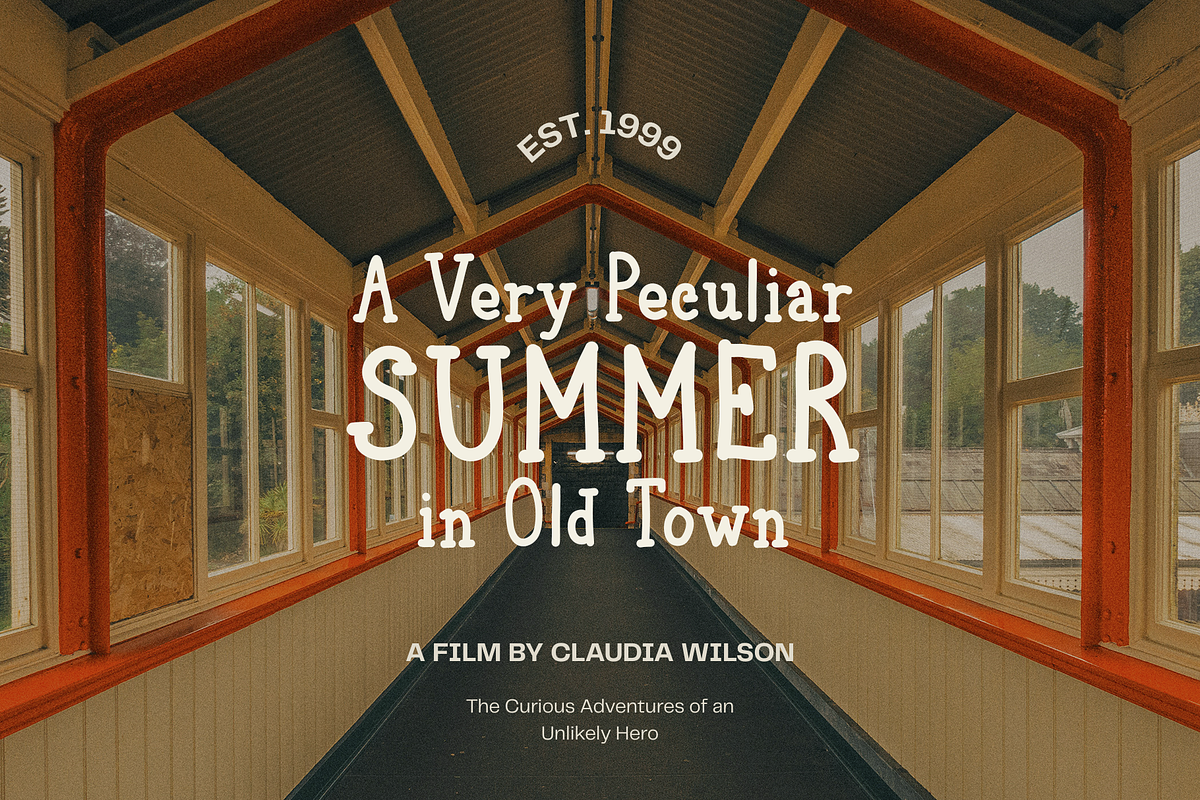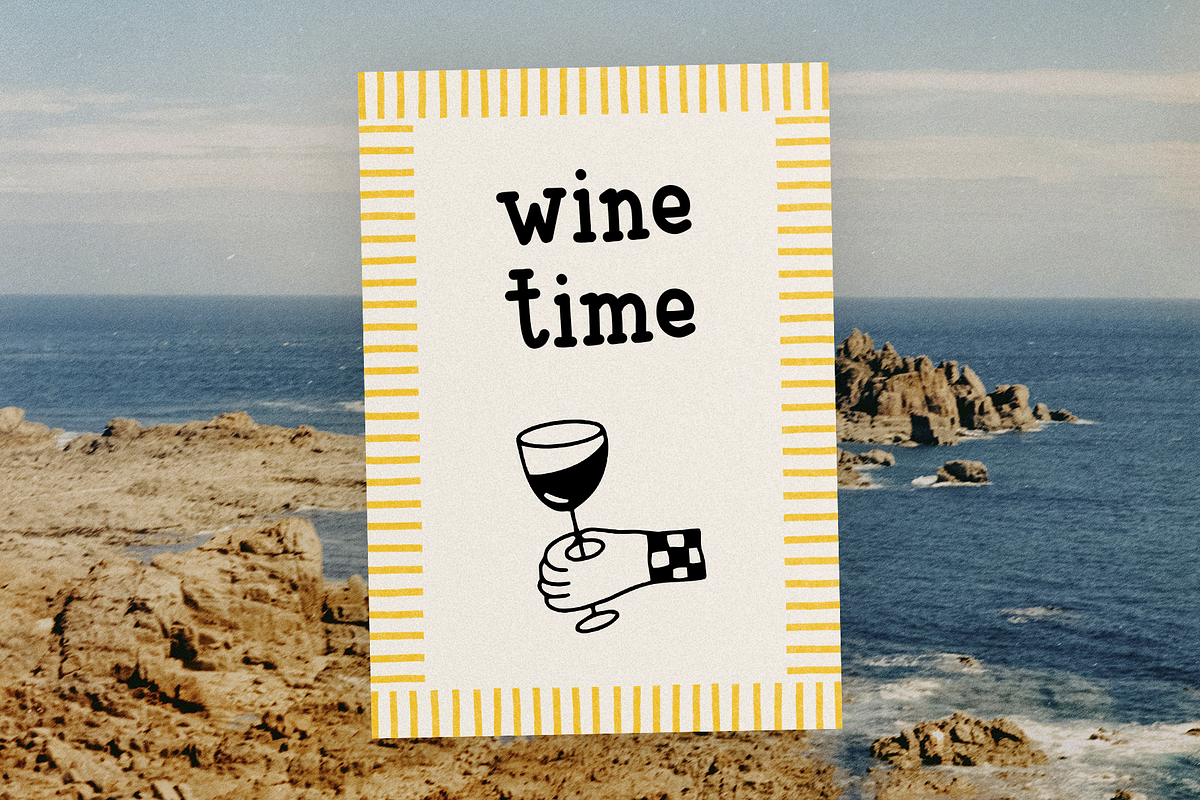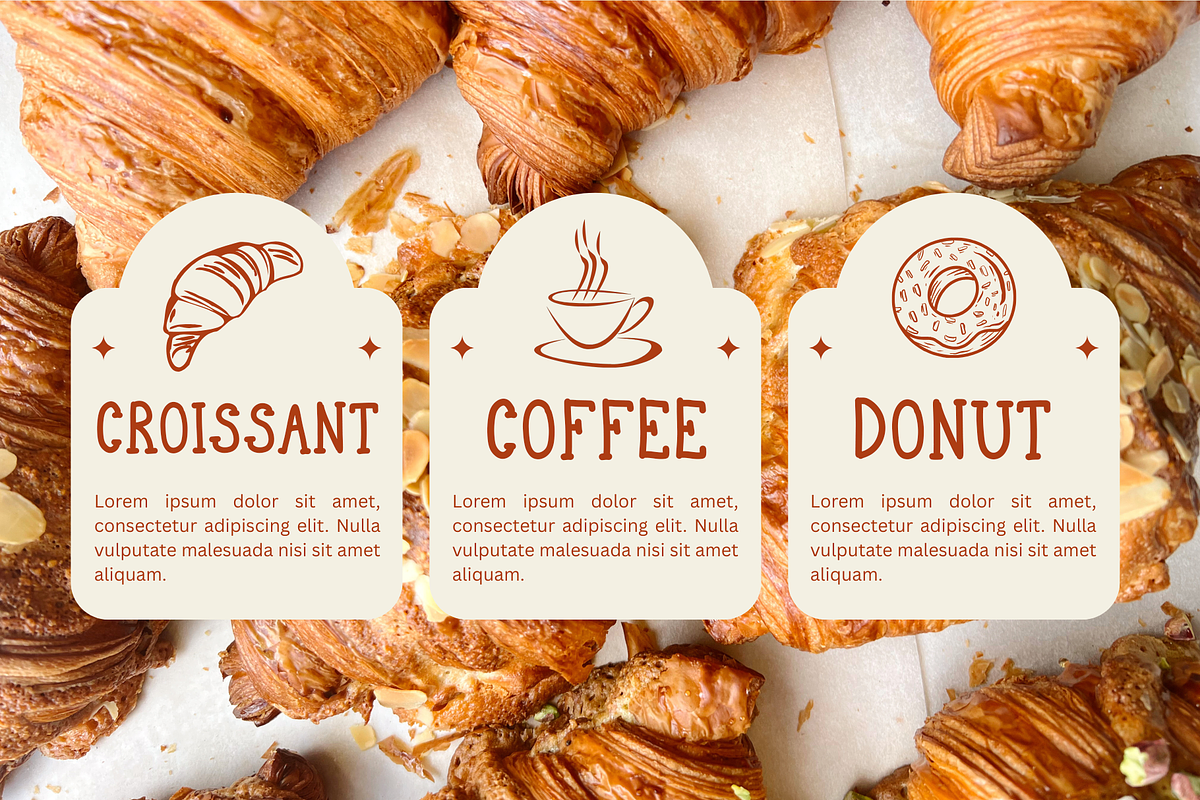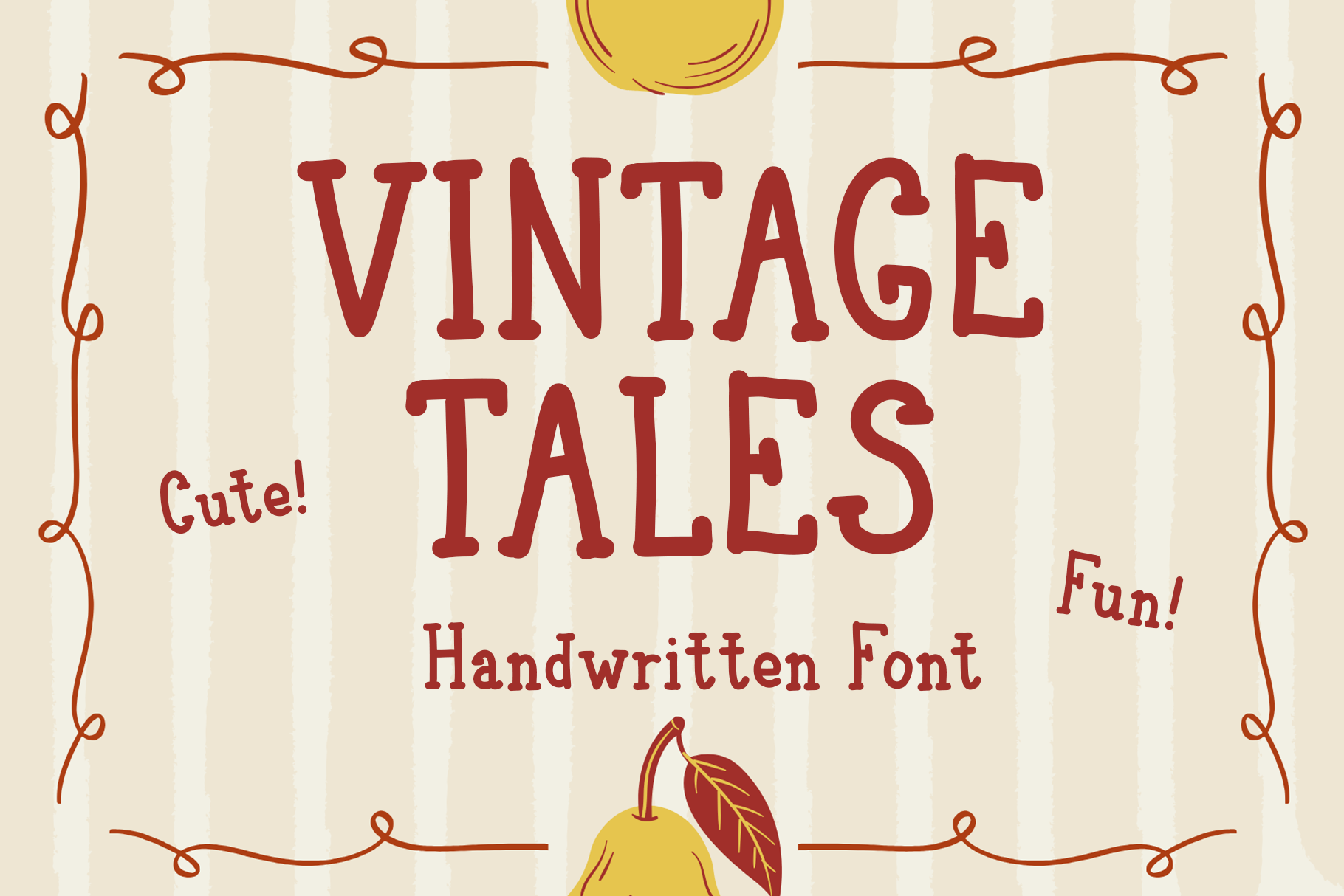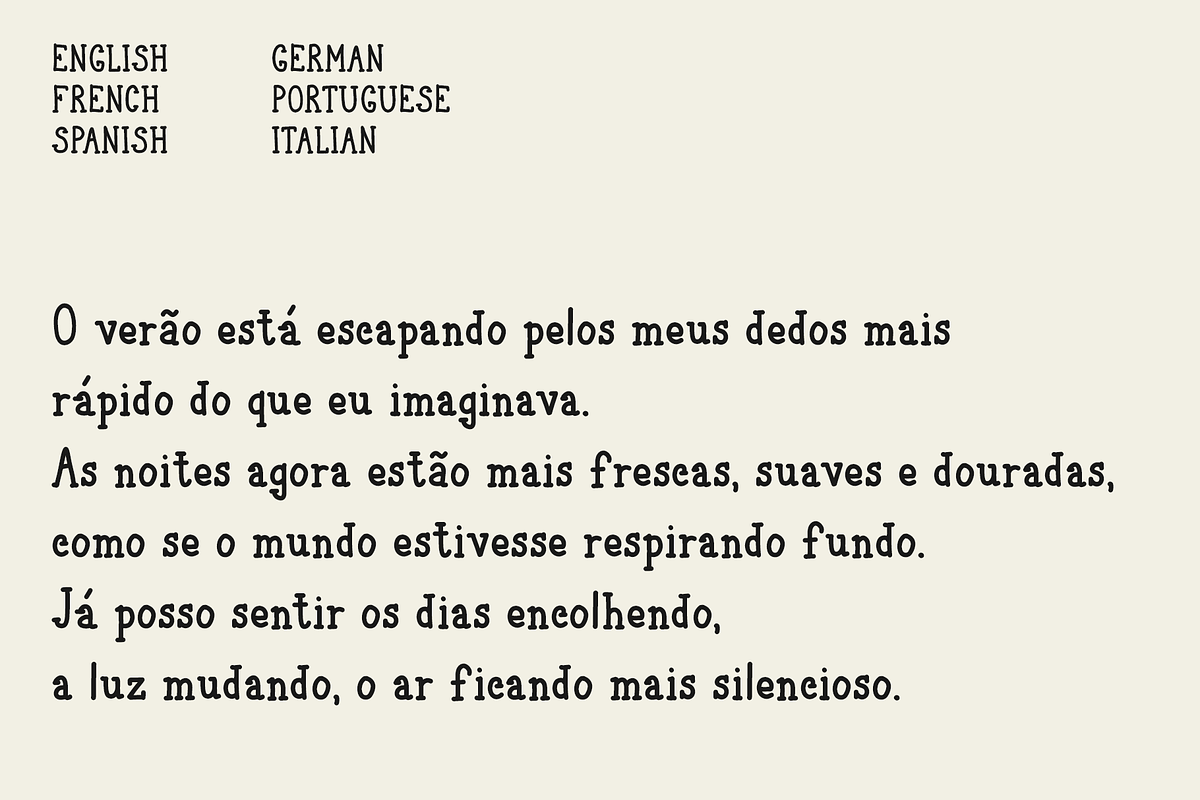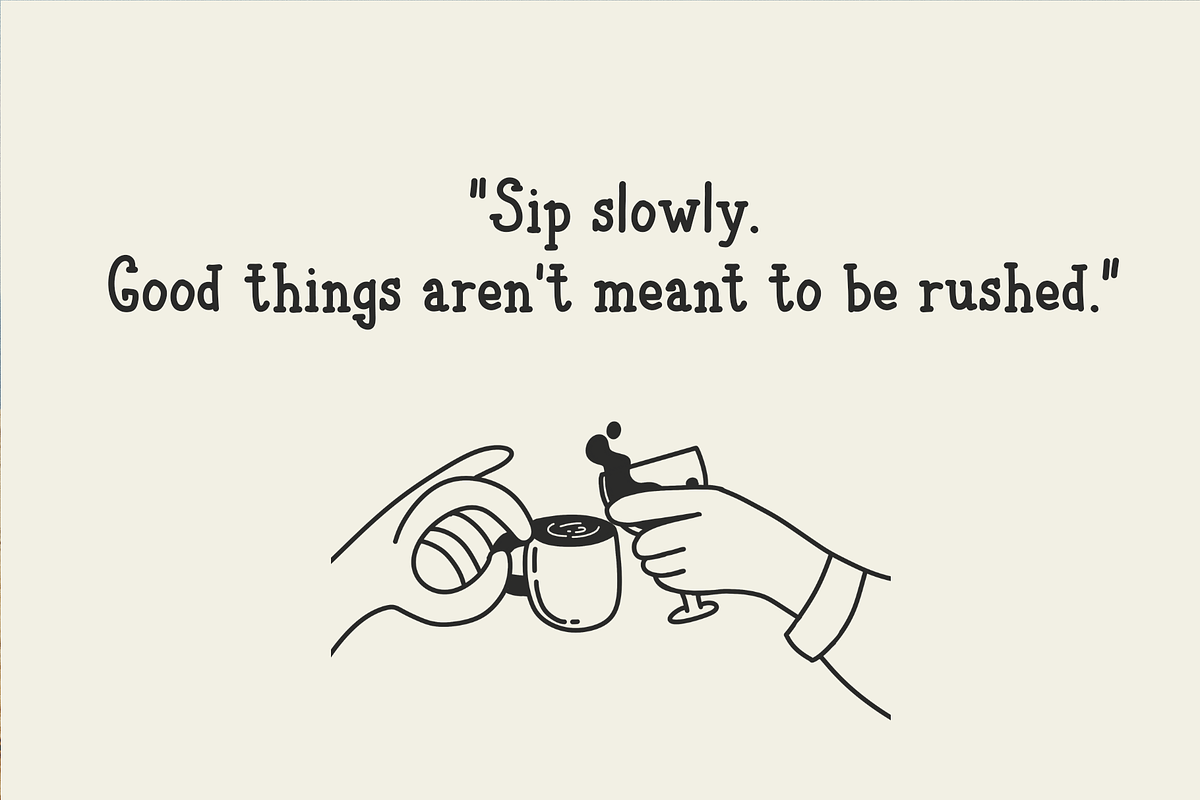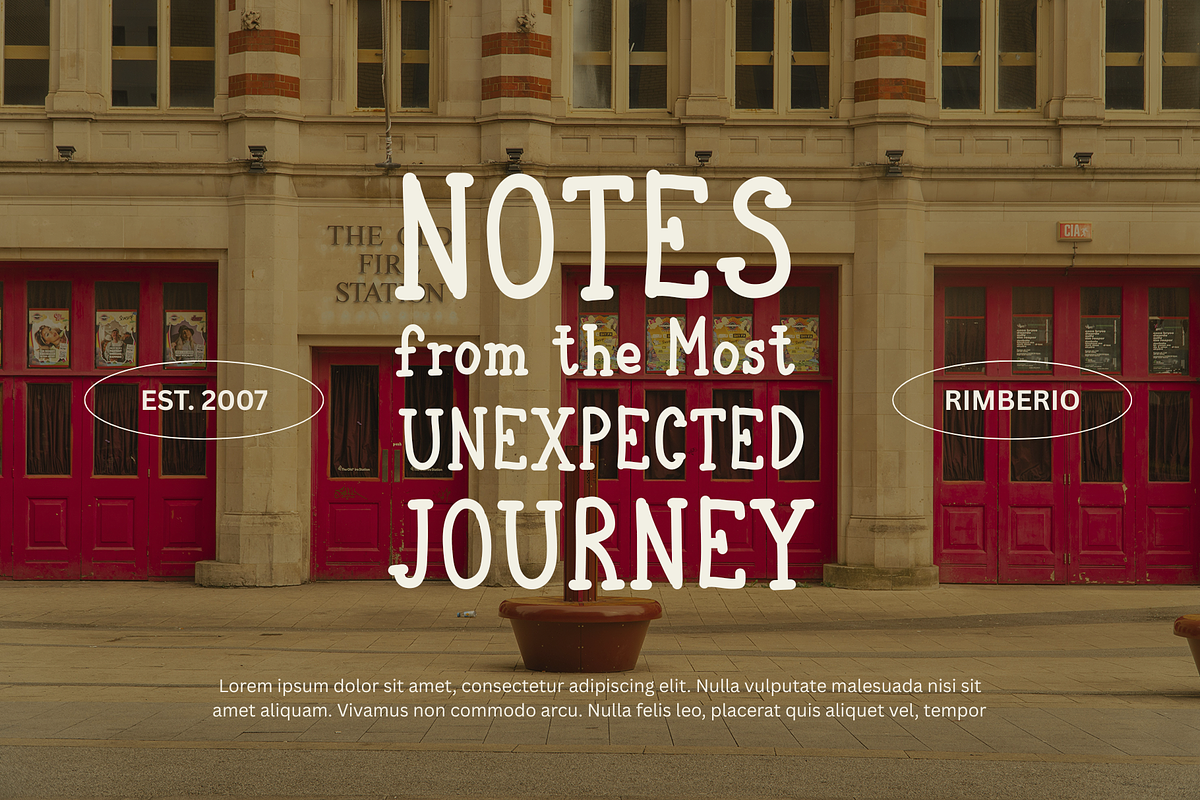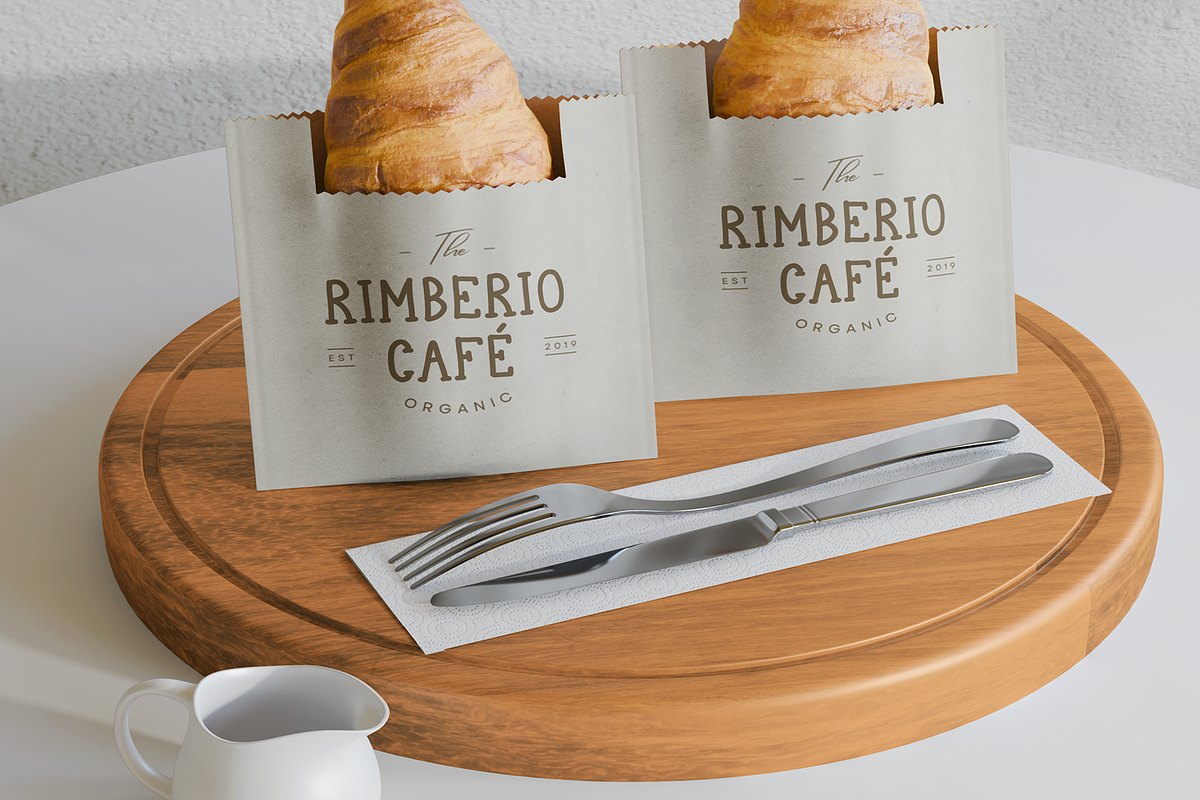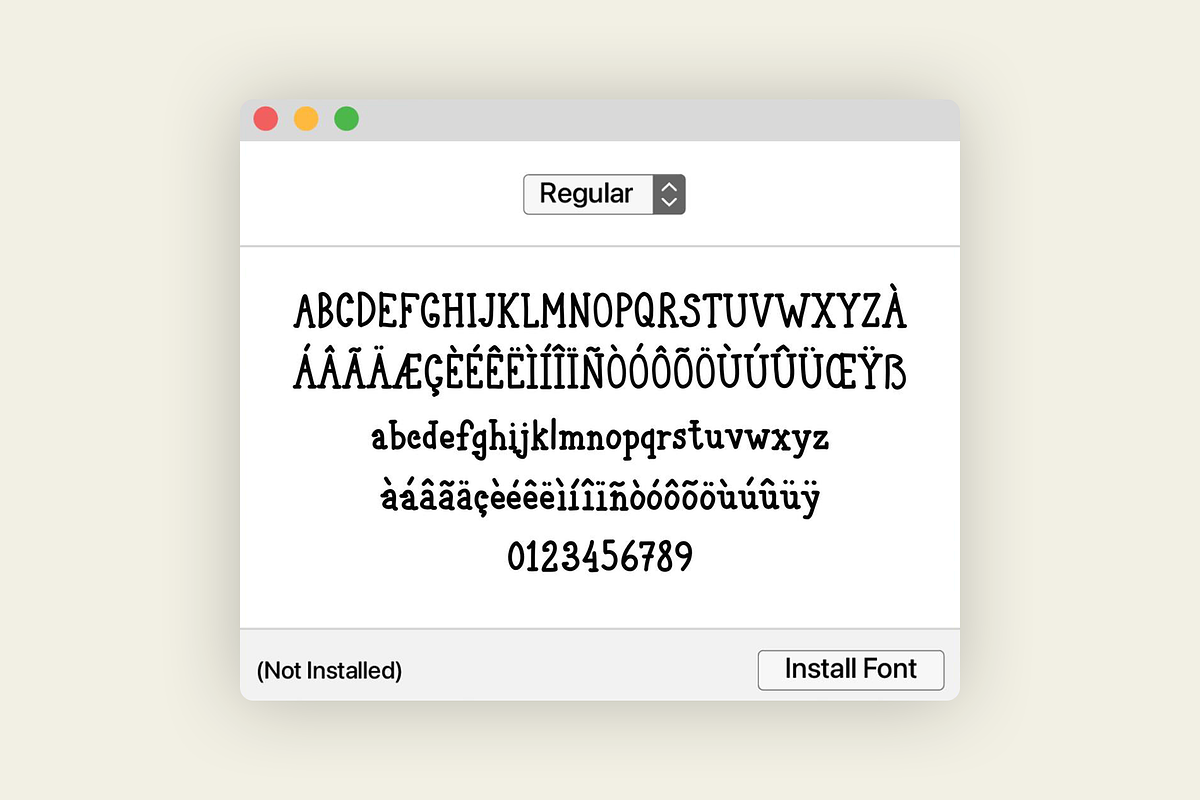
Vintage Tales Handwritten Cute Font
Introducing Vintage Tales, a charming and whimsical handwritten font that captures the nostalgic warmth of classic storybooks and vintage signage. With its cute, hand-drawn aesthetic and slightly bouncy baseline, Vintage Tales is perfect for adding a dose of playful nostalgia and authentic character to any project.
This font is designed to look effortlessly casual and friendly, making it immediately inviting and memorable.
Vintage Tales is incredibly versatile and shines in projects that need a touch of handcrafted charm and whimsy.
Children's Books & Products: The playful style is ideal for book covers, illustrations, toys, and nursery decor.
Branding & Logos: Create an approachable, unique, and memorable brand identity for bakeries, boutiques, or creative businesses.
Packaging & Labels: Give products a cozy, homemade, or classic feel.
Social Media & Quotes: Instantly elevate your graphics with a fun, eye-catching title.
Posters & Event Invites: Perfect for vintage markets, festivals, or casual celebrations.
Key Features & What's Included
Full Punctuation & Numerals: Everything you need for complete sentences and pricing.
Standard Uppercase & Lowercase: A complete set of characters with a fun, readable style.
Multilingual Support: (Includes support for Western European languages.)